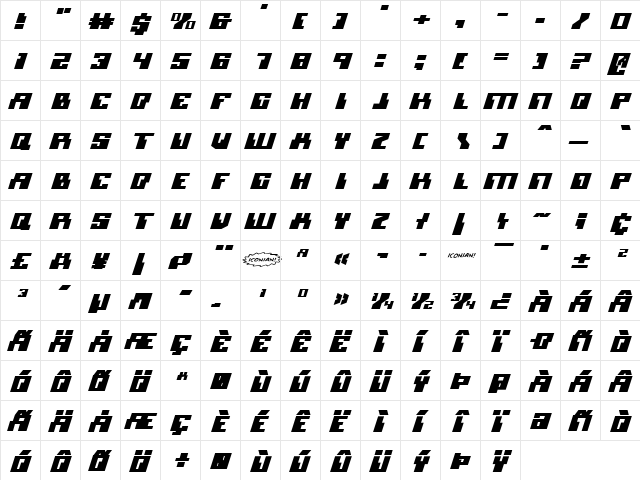
Micronian Expanded Italic Expanded Italic
Design Context for Micronian Expanded Italic Typeface
Micronian Expanded Italic is a composed and adaptable typeface that performs quietly and consistently across a wide range of design contexts. The slanted form adds forward momentum and visual energy.
Pro Tip: Try Micronian Expanded Italic for annotation and caption copy alongside an upright companion — the contrast in angle creates a dynamic but ordered typographic system.